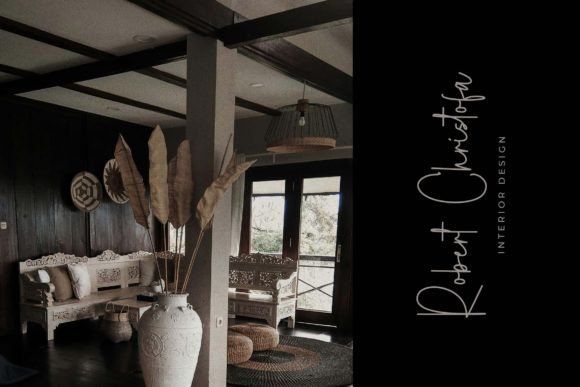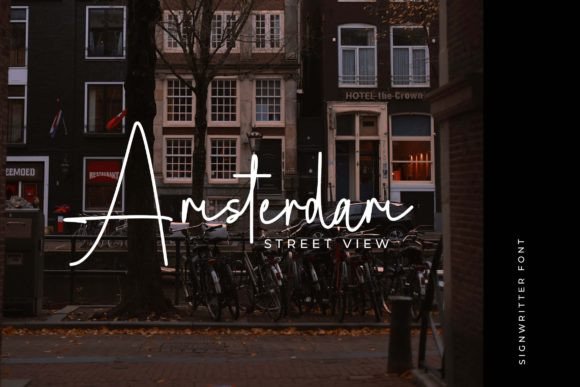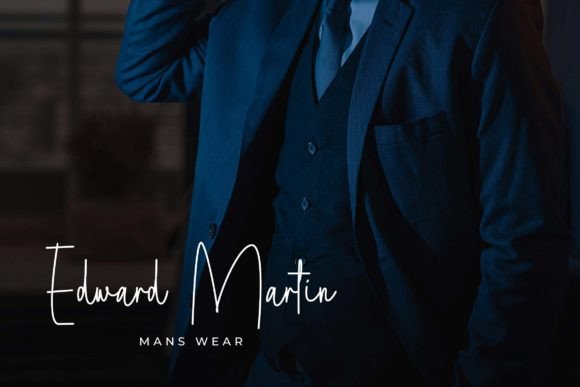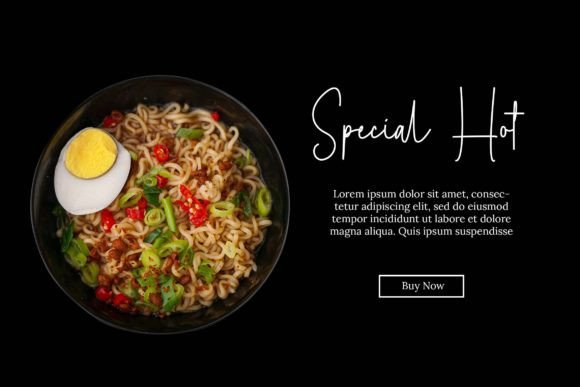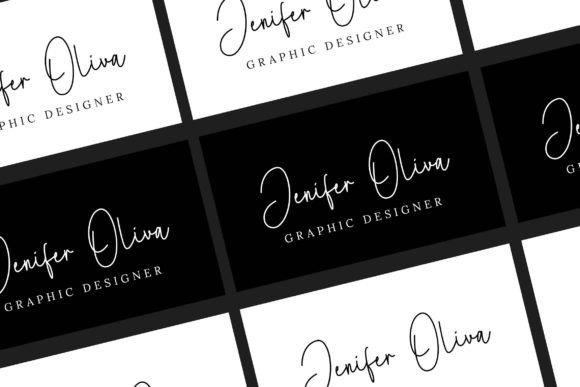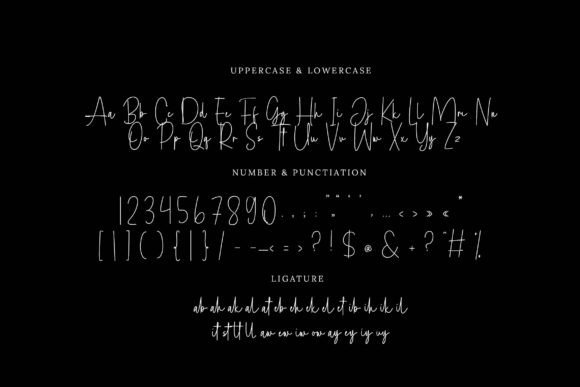
Introducing Autoshoot Font: Elevate Your Designs with Elegance and Charm
In the world of typography, a font can make or break a design. For designers and crafters looking to add a touch of sophistication and personality to their projects, Autoshoot Font is an excellent choice. This stylish handwritten script font is designed to exude elegance and charm, making it perfect for a variety of applications, from invitations and logos to branding and more.
The Beauty of Autoshoot Font
Autoshoot Font boasts flowing, graceful curves that bring a sense of luxury and refinement to any design. Its delicate strokes add warmth and creativity, making it an ideal choice for designers who want to create a lasting impression. Whether you’re working on a wedding invitation, a logo, or a brand identity, Autoshoot Font is sure to elevate your design to the next level.
Key Features of Autoshoot Font
- Elegant and charming: Autoshoot Font is designed to add a touch of sophistication and personality to your designs.
- Flowing, graceful curves: The font’s smooth, flowing curves create a sense of luxury and refinement.
- Delicate strokes: The font’s delicate strokes bring warmth and creativity to your projects.
- Versatile: Autoshoot Font is perfect for a variety of applications, including invitations, logos, branding, and more.
- Handwritten script font: Autoshoot Font has a personal, handwritten feel that adds a touch of elegance to any design.
Uses for Autoshoot Font
Autoshoot Font is a versatile font that can be used in a variety of applications, including:
- Invitations: Whether you’re planning a wedding, birthday party, or other special event, Autoshoot Font is perfect for creating elegant and sophisticated invitations.
- Logos: Autoshoot Font can be used to create a unique and memorable logo for your business or brand.
- Branding: The font’s elegant and charming feel makes it perfect for creating a cohesive brand identity.
- Stationery: Autoshoot Font can be used to create beautiful stationery, including letterheads, business cards, and more.
- Digital designs: The font can be used in digital designs, such as social media graphics, website headers, and more.
Tips for Using Autoshoot Font
To get the most out of Autoshoot Font, here are a few tips to keep in mind:
- Use it sparingly: Autoshoot Font is a statement font, so use it sparingly to avoid overwhelming your design.
- Pair it with a sans-serif font: Pairing Autoshoot Font with a sans-serif font can create a nice contrast and add visual interest to your design.
- Experiment with colors: Autoshoot Font looks great in a variety of colors, so don’t be afraid to experiment and find the perfect hue for your design.
- Pay attention to spacing: Make sure to pay attention to spacing and kerning to ensure that your text is easy to read and visually appealing.
Autoshoot Font is a beautiful and elegant handwritten script font that is perfect for designers and crafters looking to add a touch of sophistication and personality to their projects. With its flowing, graceful curves and delicate strokes, it’s an excellent choice for a variety of applications, from invitations and logos to branding and more. By following the tips outlined above, you can get the most out of Autoshoot Font and create stunning designs that leave a lasting impression.